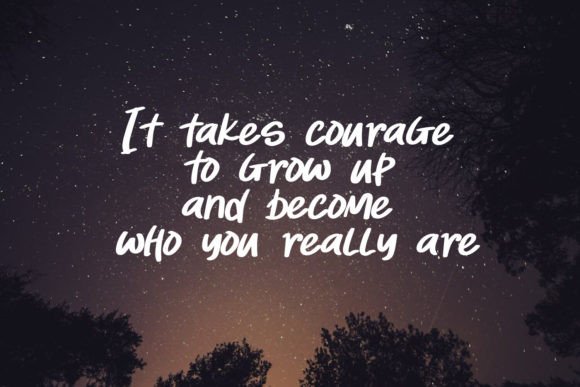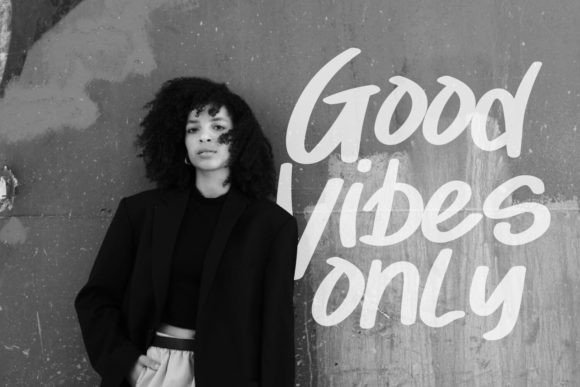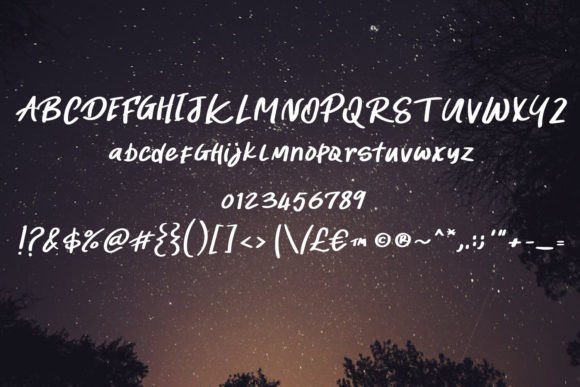
Introduction to Livixkrix Font
There’s nothing quite like the thrill of bringing a creative project to life. As designers, we pour our hearts and souls into every detail, from the initial concept to the final presentation. And what’s at the heart of it all? The perfect font, of course! In this article, we’ll dive into the world of Livixkrix Font, a stunning handwritten brush font that’s set to elevate your designs to new heights.
With its contemporary atmosphere and impeccable form, Livixkrix Font is the ultimate design resource for any project. Whether you’re working on a high-quality brochure, a website, or a social media campaign, this font is sure to add a touch of elegance and sophistication. And the best part? It’s available for free download, making it an accessible and valuable resource for designers of all levels.
Key Features of Livixkrix Font
- Unique and creative design perfect for various projects and designs, ideal for a creative project.
- High-quality font with a transparent background, ideal for designers looking for a design resource.
- Includes a range of characters and symbols, including uppercase and lowercase letters, numbers, and punctuation.
Honest Review: Livixkrix Font
I recently had the chance to work with the Livixkrix Font in a creative project, and I must say it’s a high-quality design resource. The font’s unique style and versatility made it a perfect fit for my project.
- ✨ Unique and creative style that can add a touch of elegance to any design project.
- ⚠️ Limited font weights and styles, which may not be ideal for complex design projects.
- ⚠️ May not be suitable for use in small font sizes due to its complex design.
Overall, I was impressed with the Livixkrix Font and would definitely consider using it in future design projects. It’s a great free download for designers looking for a unique and high-quality font to add some creativity to their work.
Tips for Getting the Most Out of Livixkrix Font
To get the most out of the Livixkrix Font, be sure to pair it with a high-quality design that showcases its unique characteristics. You can also use the font in combination with other design elements, such as images and graphics, to create a visually appealing design. Additionally, be sure to download the font for free to access its full range of features and styles.
The Livixkrix Font is particularly useful for designs that require a modern and creative look, such as: